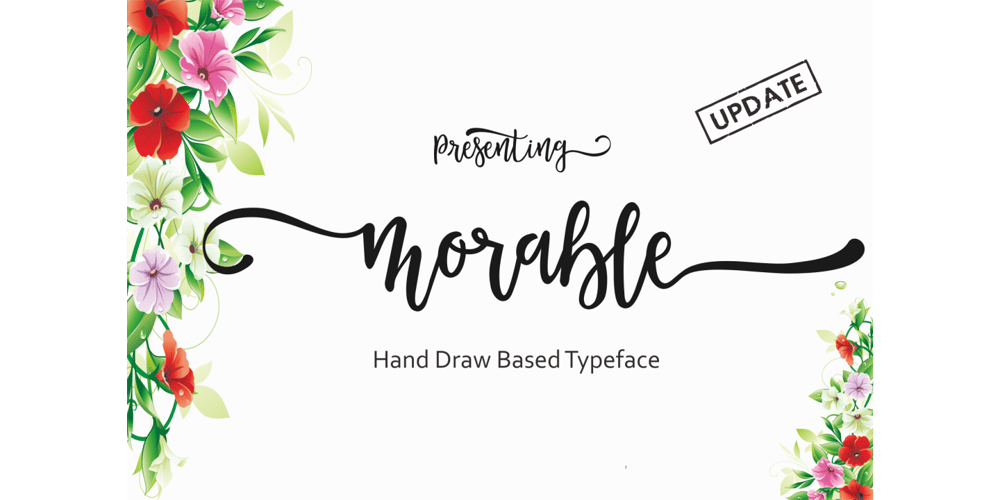
Morable Font Family was designed by Murtadha bin Sulaiman and published by Malindo Creative. Morable contains 1 styles and family package options. Morable is a modern hand based typeface, This font consists of letters that flows irregularly, either between top-down and with the letter afterwards, which makes it suitable for Logotype, posters, businness card, merchandise, wedding invitations, greeting cards, blog banners, apparel, design of water-based paints/prints, correspondence, quotes and a variety of other!Morable has given PUA encoded (specially coded fonts).Files included:morable.otfIf you want other files that are not here, please let me know. I will be happy to help.If you have any questions, please contact me at. malindocreative@gmail.com.Thanks for SupportFeel free to contact me if you have any questions, I am happy to help you.